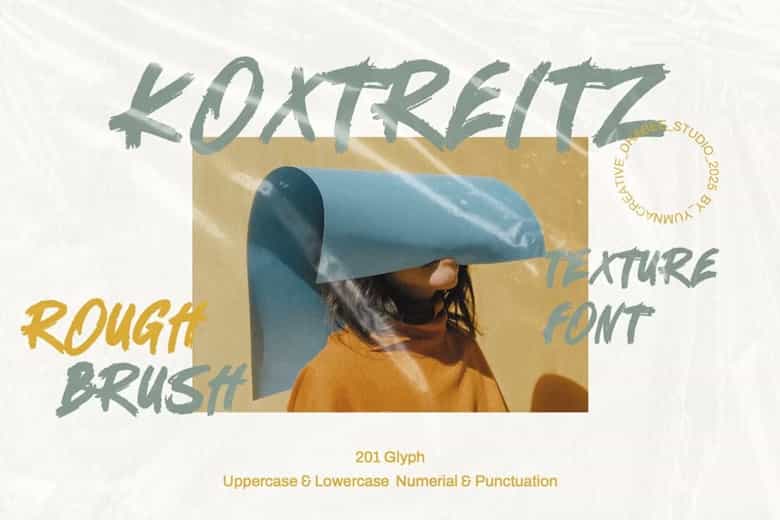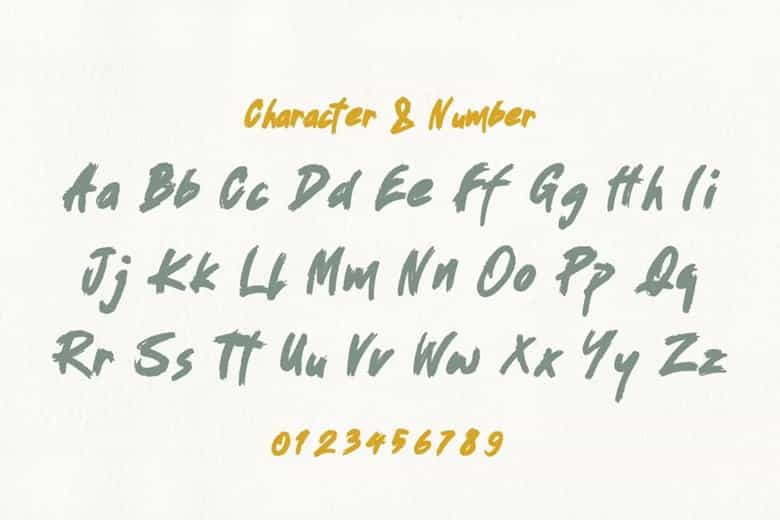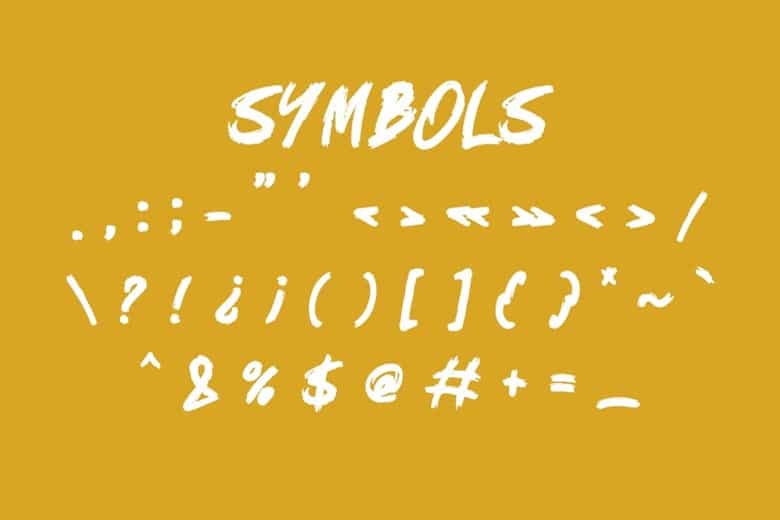
Koxtreitz is a modern, elegant and flowing brush script typeface. It is dynamic and possesses beautiful and It has attractive and distinct ligatures that embed a letter, so that authors create it with little swirly embedding, so that a modern font forms and has a ready prospect to present a style and uniqueness to the following new design project . Incorporate it into your most creative ideas and observe how your ideas get a shot of fresh energy!